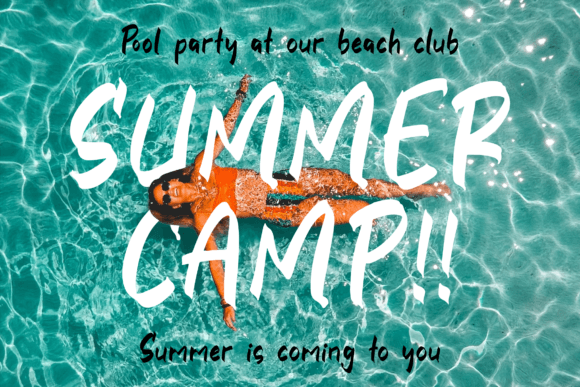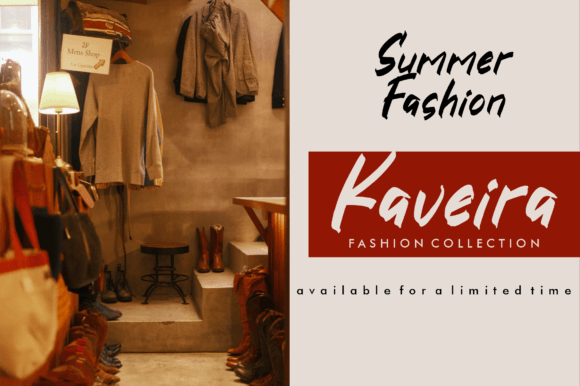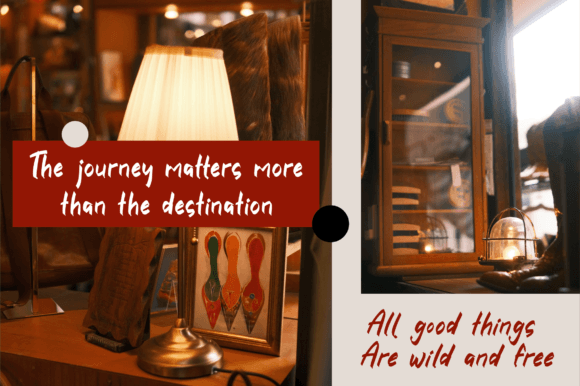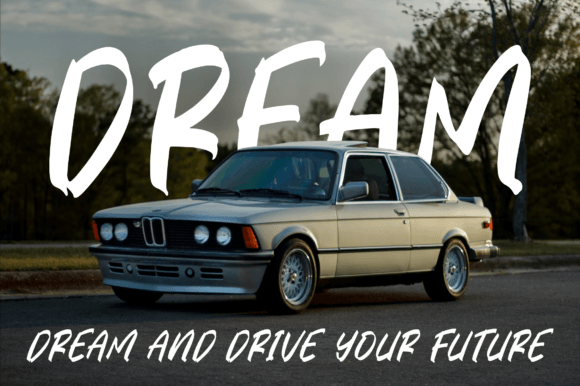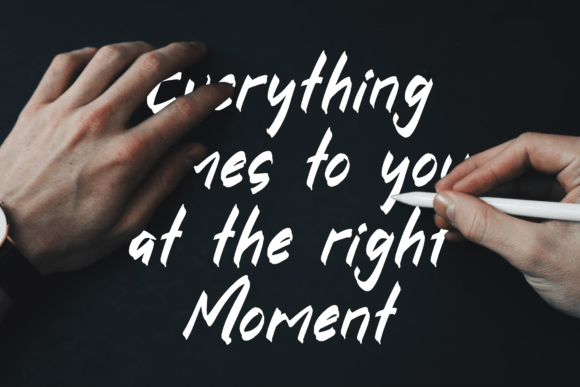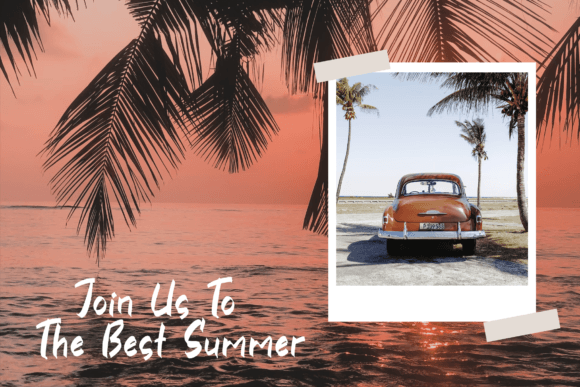
The Perfect Brush Stroke for Your Next Creative Project
As a designer, there’s nothing quite like the thrill of finding the perfect font to bring your vision to life. It’s that moment when the words start flowing, and your ideas begin to take shape. You know exactly what you’re looking for – a font that’s elegant, yet approachable; sophisticated, yet playful. For many designers, that font is Catynburg Browling Font, a beautiful script from Perspectype Studio that’s perfect for a wide range of projects.
This gorgeous handwritten font is more than just a pretty face – it’s a valuable tool for designers who want to add a touch of personality to their work. With its versatility and charm, Catynburg Browling Font is ideal for everything from logos and branding projects to homeware designs, product packaging, and more. Whether you’re creating a new brand identity or adding a personal touch to a special event, this font is sure to make a lasting impression.
Catynburg Browling Font Key Features
- Font Family: Catynburg Browling Font is a unique, hand-drawn font family consisting of 2 styles: Regular and Italic.
- Character Set: Includes a wide range of characters, including uppercase and lowercase letters, numbers, punctuation marks, and special characters.
- Size and Resolution: Designed to be highly scalable, with optimal results at 300 DPI and above.
- Unique Characteristics: Features a distinctive, hand-drawn feel with subtle texture and imperfections, giving it a personal and artisanal touch.
Designer Review: Catynburg Browling Font
Overall, I think Catynburg Browling Font has a lot going for it. The font’s unique blend of vintage and modern elements ✨ catches the eye and adds a touch of sophistication to any design. The font’s flexibility allows it to work well in a variety of contexts, from editorial and advertising to branding and packaging.
The font’s extensive character set and language support ✨ make it a great option for designers who need to create content in multiple languages. The font’s legibility is also top-notch, making it easy to read even at smaller font sizes.
- ⚠️ Limited expressiveness: While the font is versatile, it can feel a bit too safe and conservative for designers who want to make a bold statement.
- ⚠️ Limited stylistic variations: The font’s stylistic set options are limited, which can make it feel a bit one-dimensional at times.
Overall, I think Catynburg Browling Font is a solid choice for designers who want a high-quality, professional-looking font that’s easy to work with. While it may not be the most exciting or expressive font out there, it gets the job done and looks great doing it.
The Catynburg Browling Font is ideal for creating unique and eye-catching designs. Here are some tips and common use cases:
Use the font for titles, headings, and body text to add a touch of elegance and sophistication to your designs.
Experiment with different font sizes and styles to create a visually appealing contrast.
Combine the font with other creative elements, such as graphics and illustrations, to create a cohesive and engaging design.
Great Vibes is a beautiful, modern script font ideal for creating elegant and sophisticated designs. It’s perfect for wedding invitations, branding, and promotional materials. Great Vibes offers a more refined and polished look compared to Catynburg Browling Font, which is more playful and rustic.
Comparison: Great Vibes is more elegant and refined, while Catynburg Browling Font is more casual and relaxed.
Carolyna Pro is a modern script font that’s perfect for creating eye-catching and stylish designs. It’s ideal for branding, packaging, and advertising materials. Carolyna Pro offers a more dynamic and energetic look compared to Catynburg Browling Font, which is more laid-back and casual.